16 Fresh Free Fonts For Graphic Designers
Simple, hand-drawn script and sans serif fonts free download 2020. Modern high quality free fonts perfect for logotype, branding and any kind of typography artwork. This collection included sans serif fonts, script fonts, handwritten fonts and brush fonts which can make your design more professional. The following latest fonts 2020 free download ideal to make an creative design and perfect for any artwork. Take a look at beautiful commercial fonts for professional design, based upon suggestions from designers all over the world.
New Fonts 2020 Free Download
Here is the list of Fresh Free Fonts for Graphic Designers.
1. Choripan Free Font
2. Forgetthing You Free Font
3. Kage Black Free Font
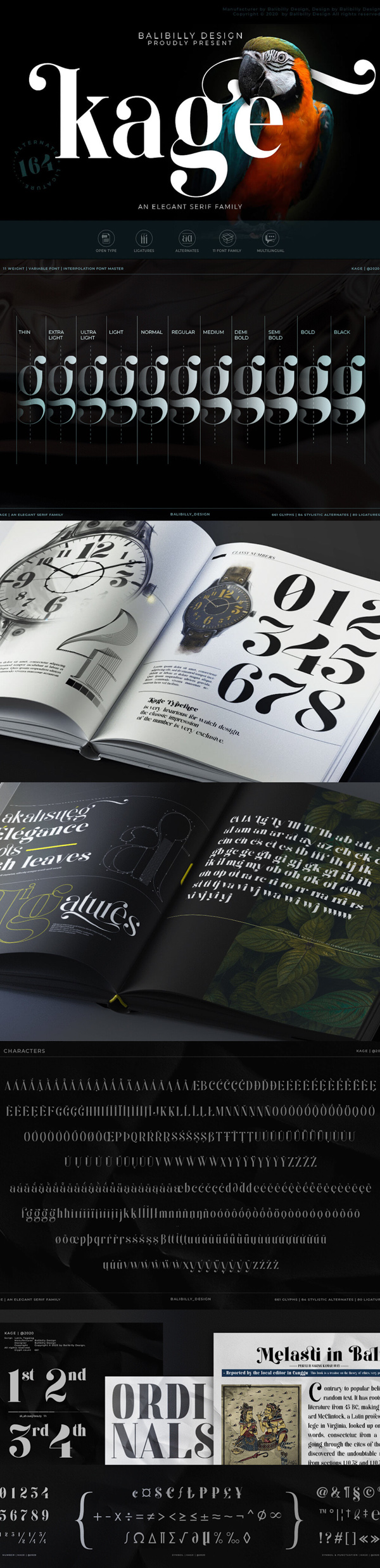
4. The Anthelope – Retro Script Free Font
5. Templegarten Free Font
6. Nafta Free Font
7. John Mayer Fancy Ligature Free Font
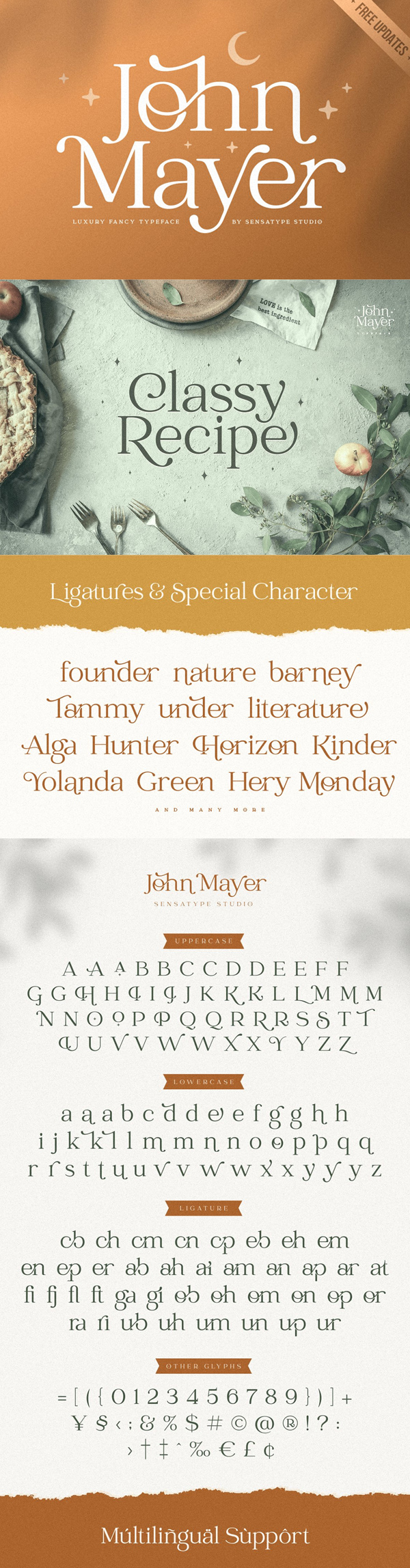
8. Gabana Free Font
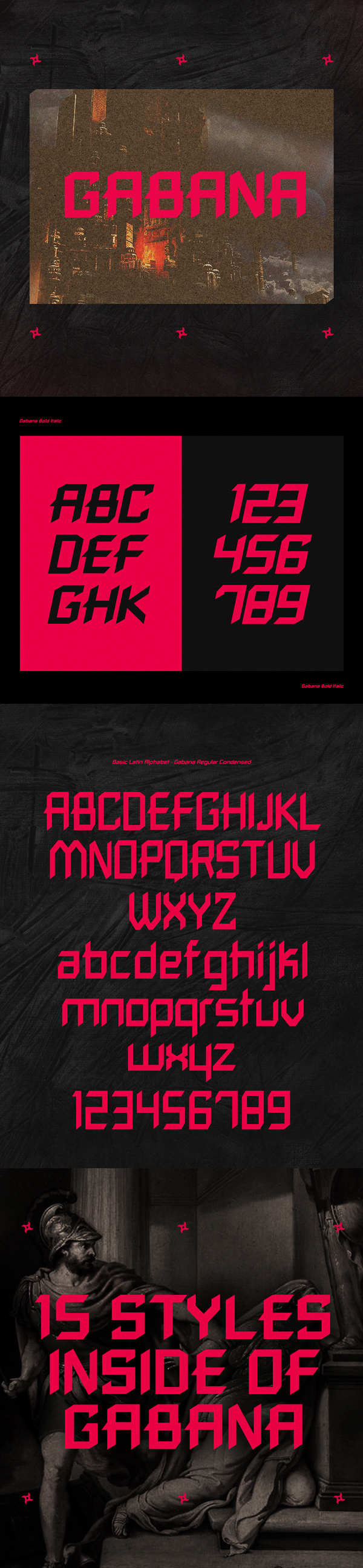
9. XXII Aven Free Font
10. The Blue Free Font
11. Dredd Free Font
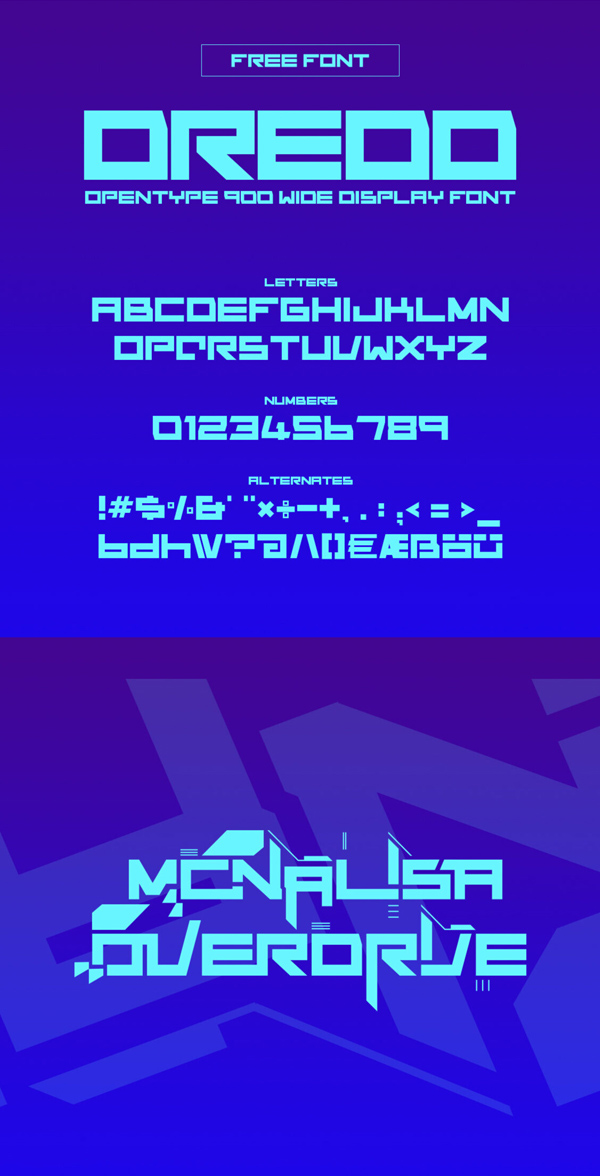
12. Dongol Arabic Hand-Drawn Free Font
13. Coworking Free Font
14. Sanlulus Free Font
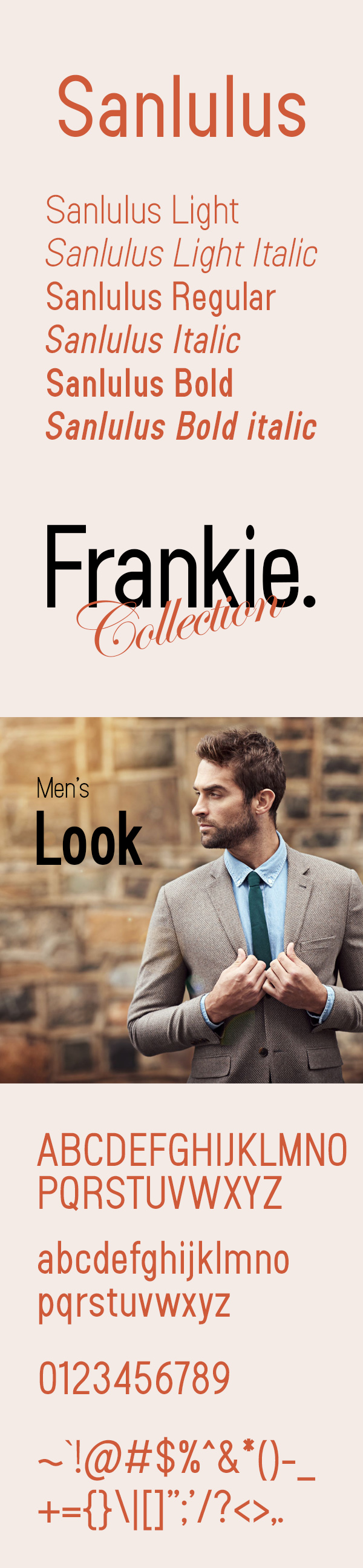
15. Motesia Script Free Font
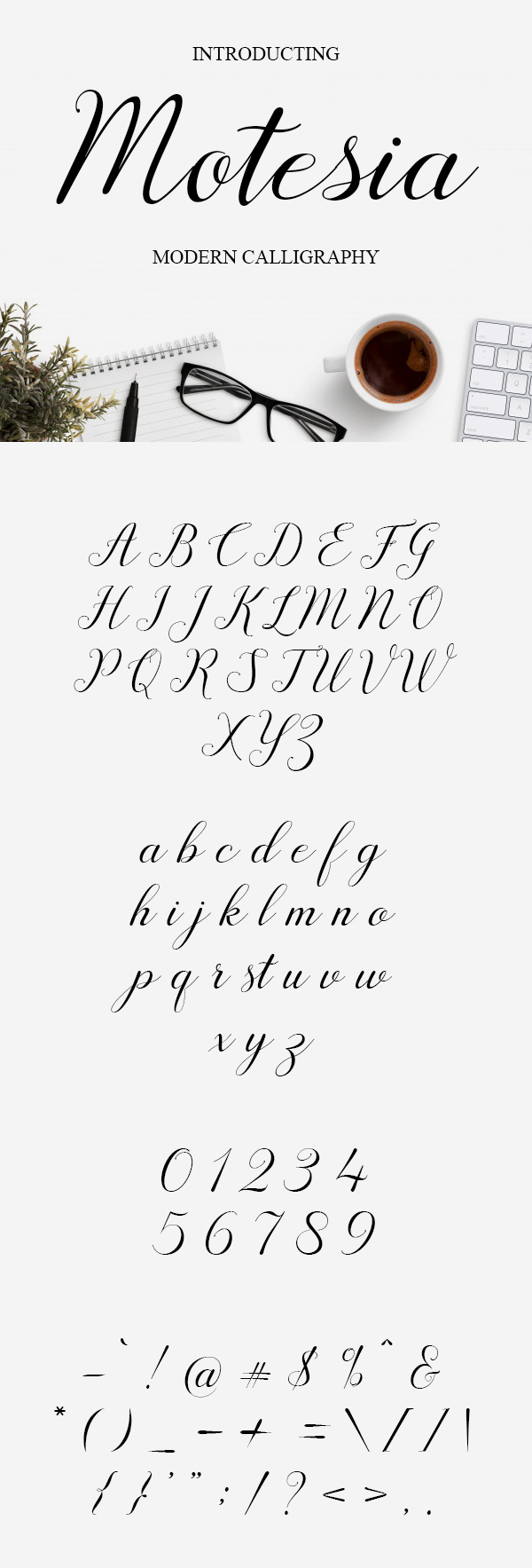
16. Carogna Free Font